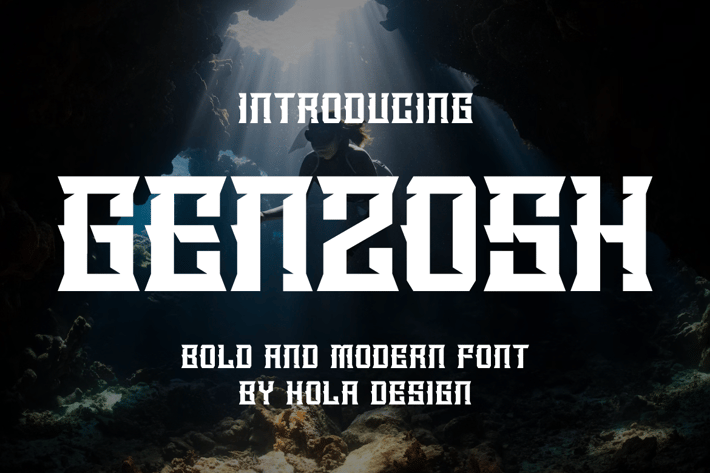
Genzosh Font
Genzosh Font Font is unique . Ready to use for your design like labeling, movie sceen, poster, movie title, gigs, album covers, logos, and much more.